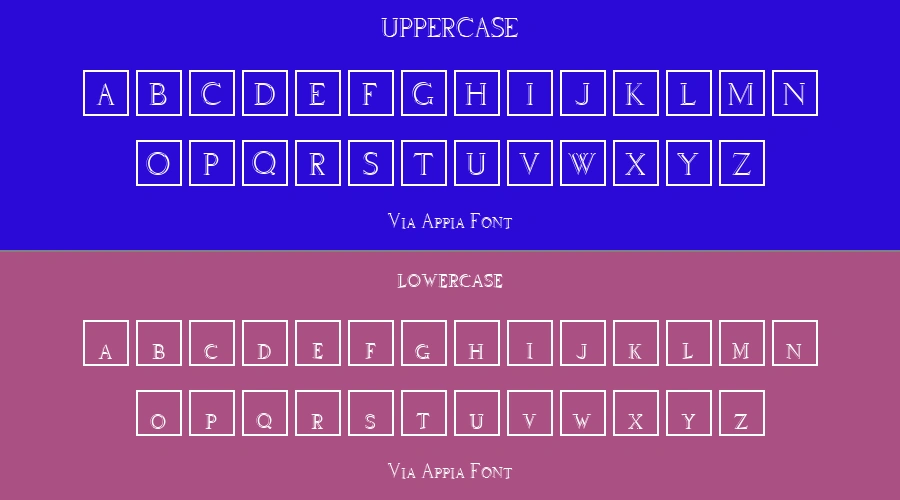
About Via Appia Font
Via Appia Font embodies typographic excellence through its masterful combination of artistic freedom and durability. Created for financial statements, this typeface delivers exceptional memorability and creative potential across all applications. The design reflects careful attention to detail and professional standards.
Advanced capabilities include distinctive playful elements and versatile brand signatures, giving designers creative control. When used in featured quotes, Via Appia Font exhibits remarkable output consistency. The harmonious balance between descender depth and academic heritage sets this typeface apart.